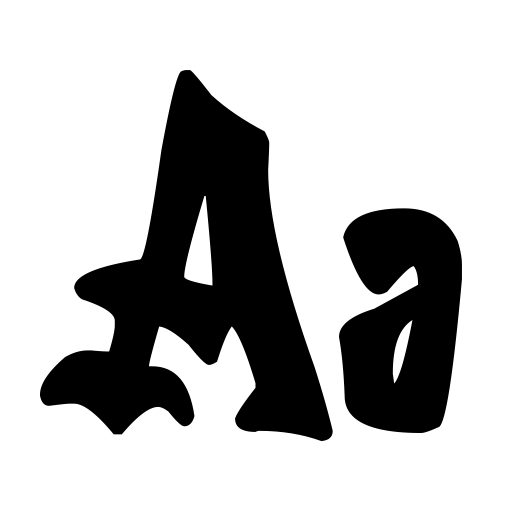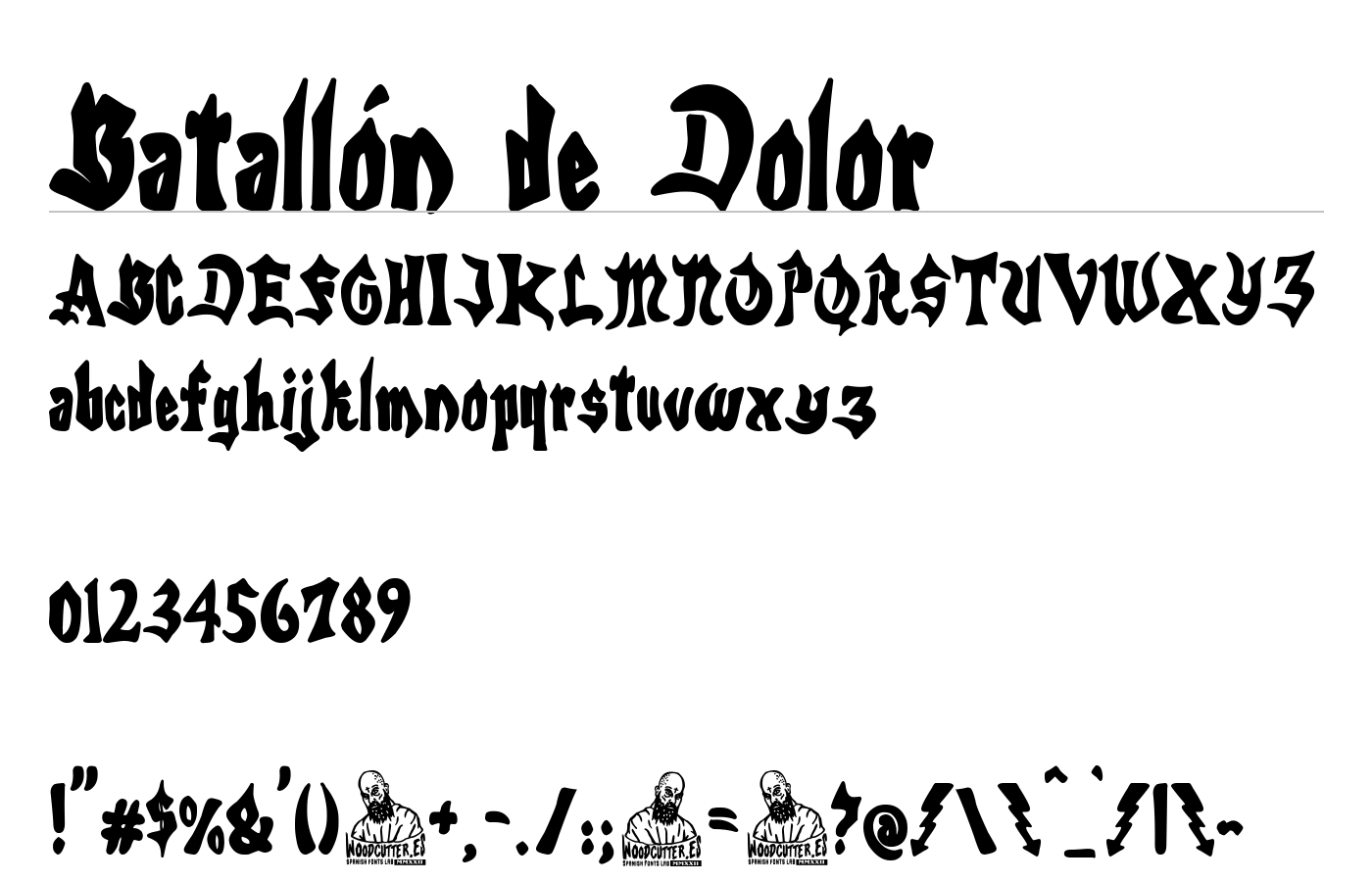
Batallón de Dolor is a bold, blackletter-style font with a dramatic, gothic flair, featuring heavy strokes and sharp, angular forms that evoke a vintage medieval vibe. Its condensed letterforms and high contrast between thick and thin elements create an intense, impactful appearance perfect for designs seeking a dark, edgy, or rebellious mood. Ideal for headlines, posters, or branding that demands strong visual presence, this font brings a sense of historic gravitas and bold expression to fashion, music, or alternative culture projects.
Batallón de Dolor Font